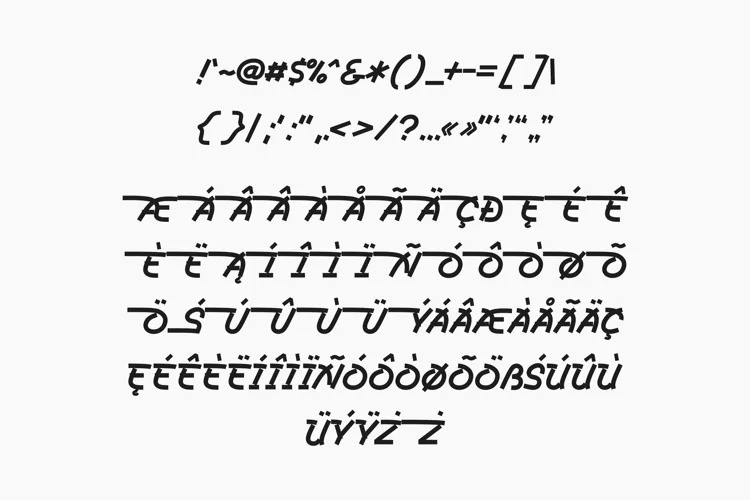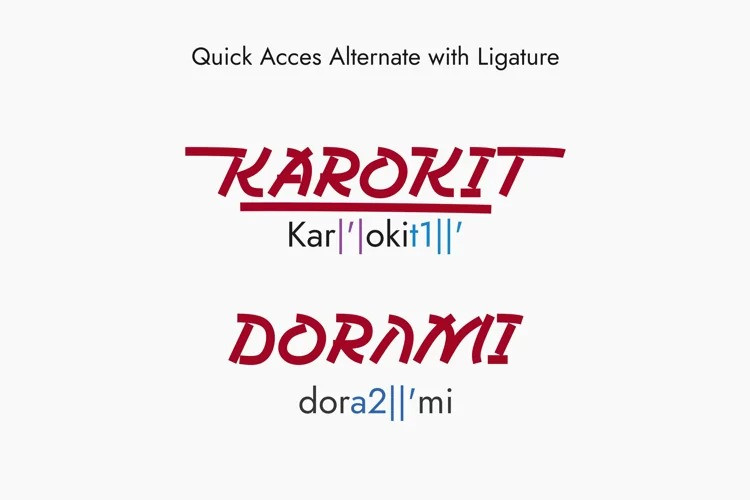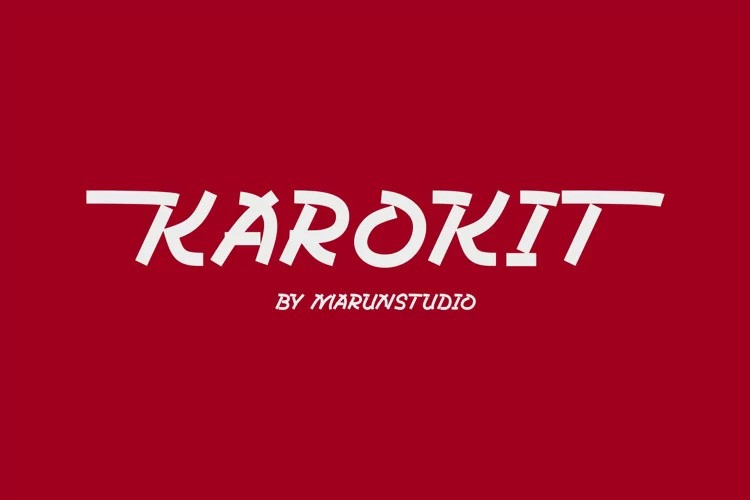
Karokit Font
Introduces a new display typeface. Karokit Display Font is inspired by modern Japanese letters which are made with care and love. Karokit features Opentype and multilingual accents along with numbers and symbols. With more than 385 glyphs that can be used for any purpose such as logos, brand identity, clothing, posters, advertisements, titles, invitations, stationery and more.